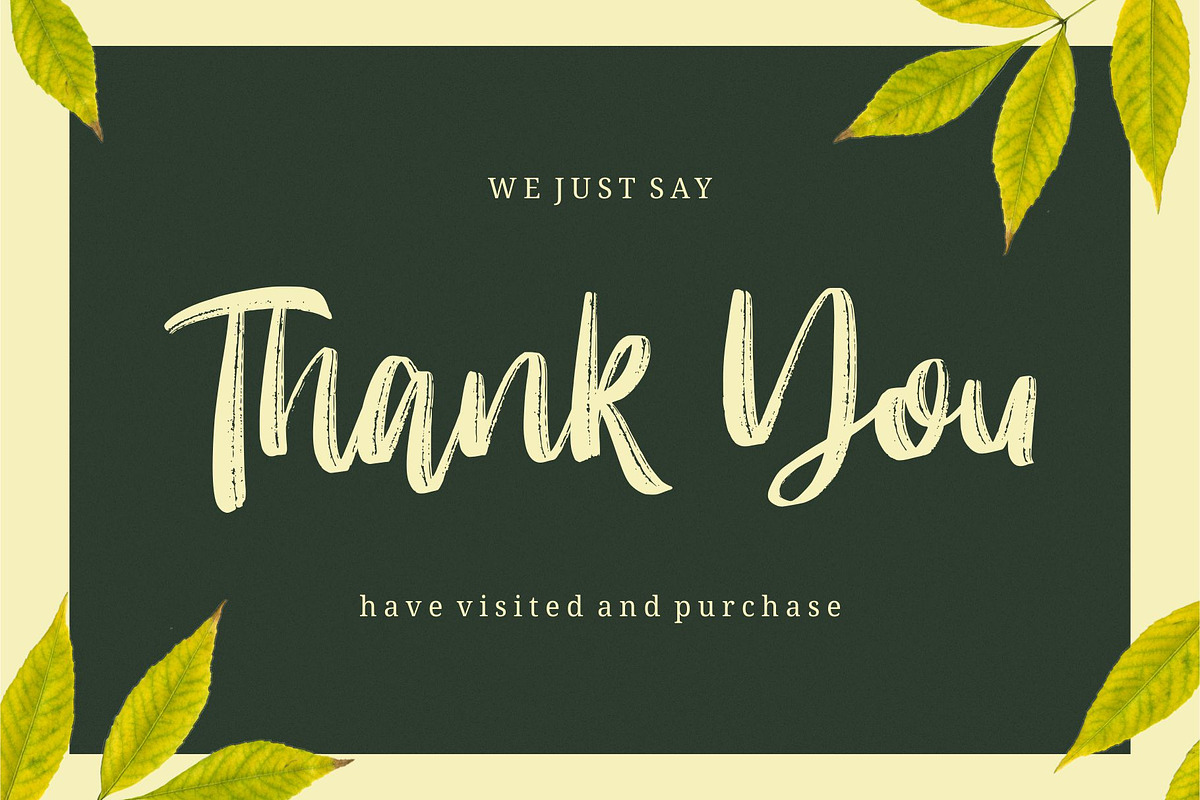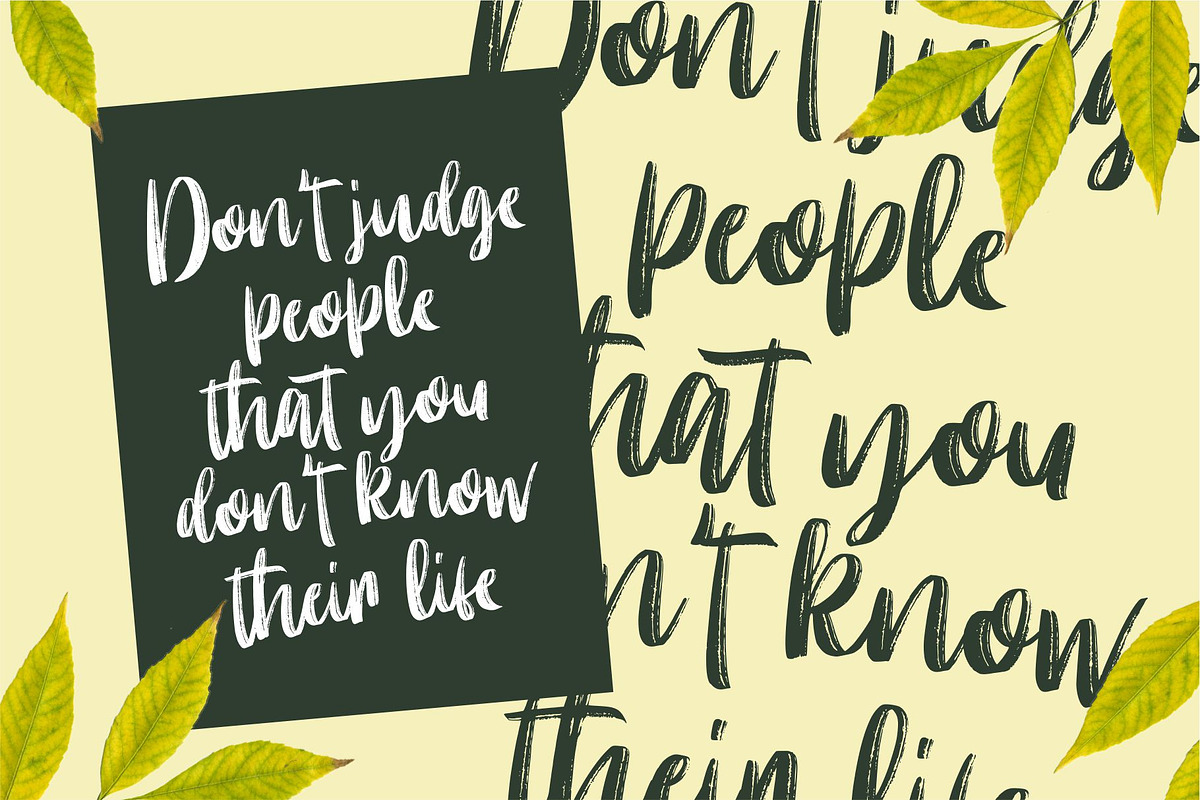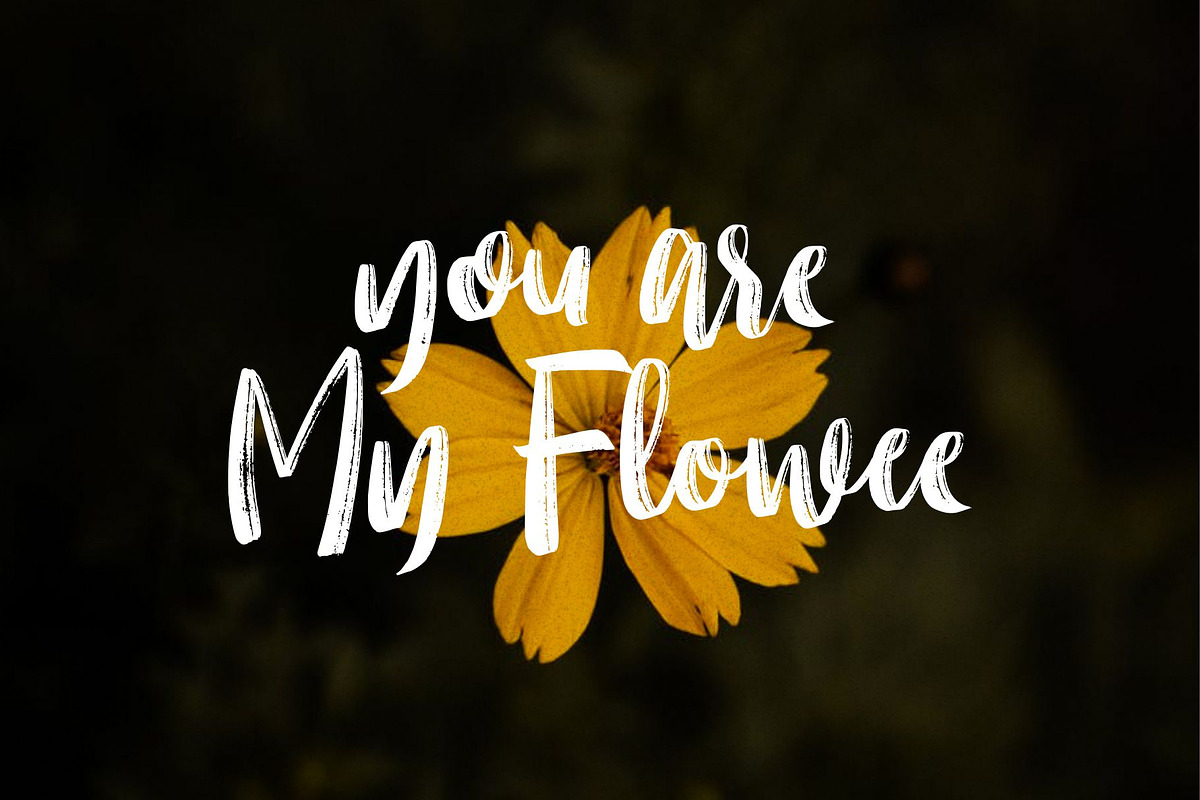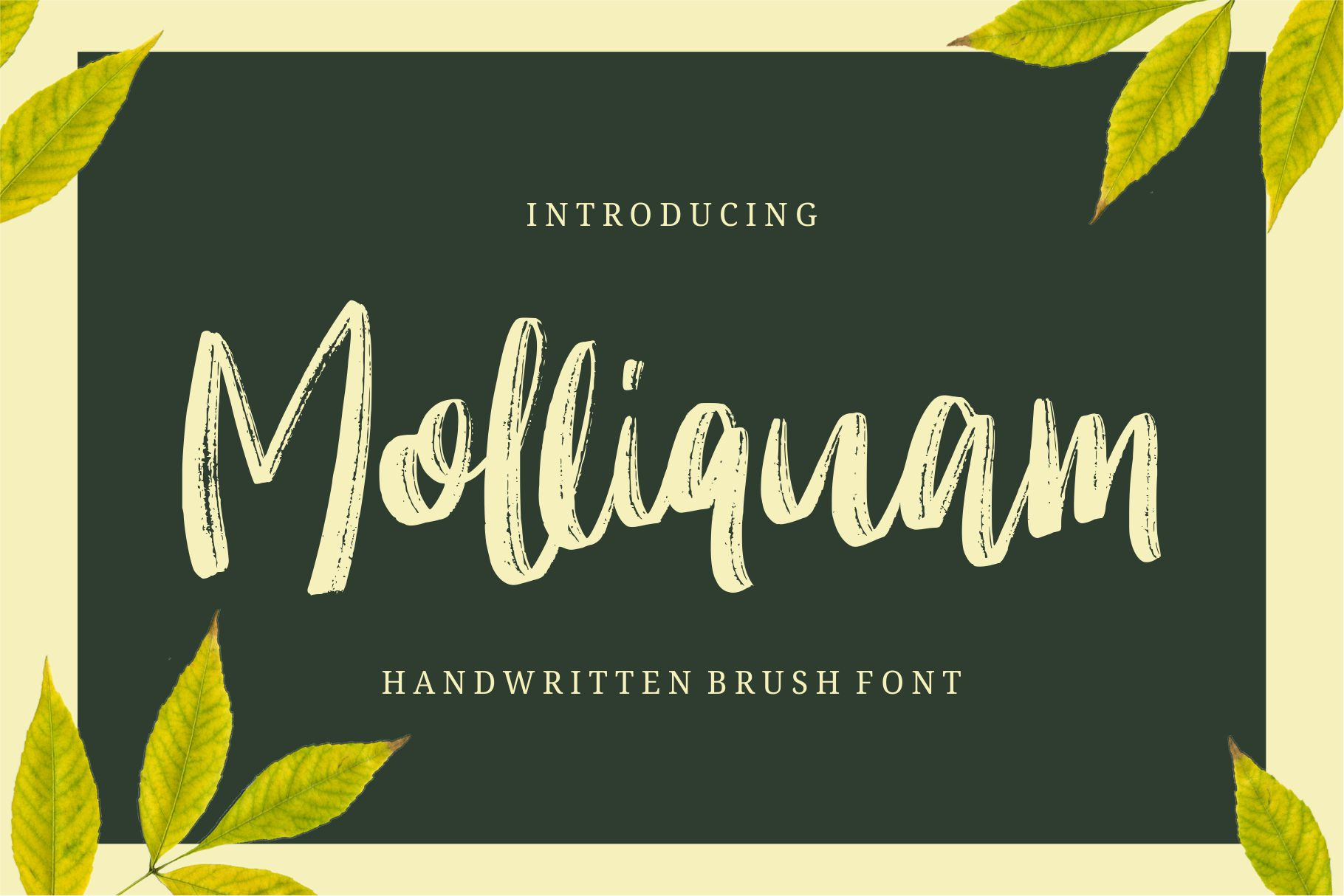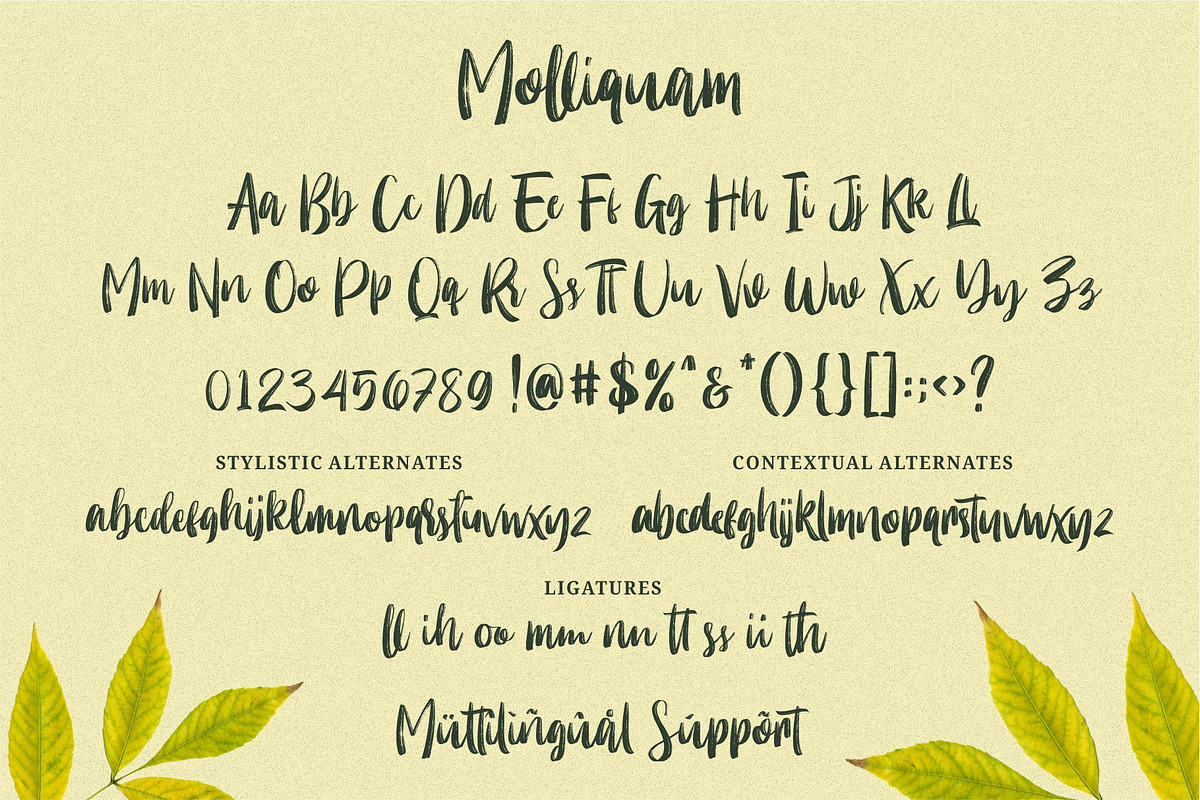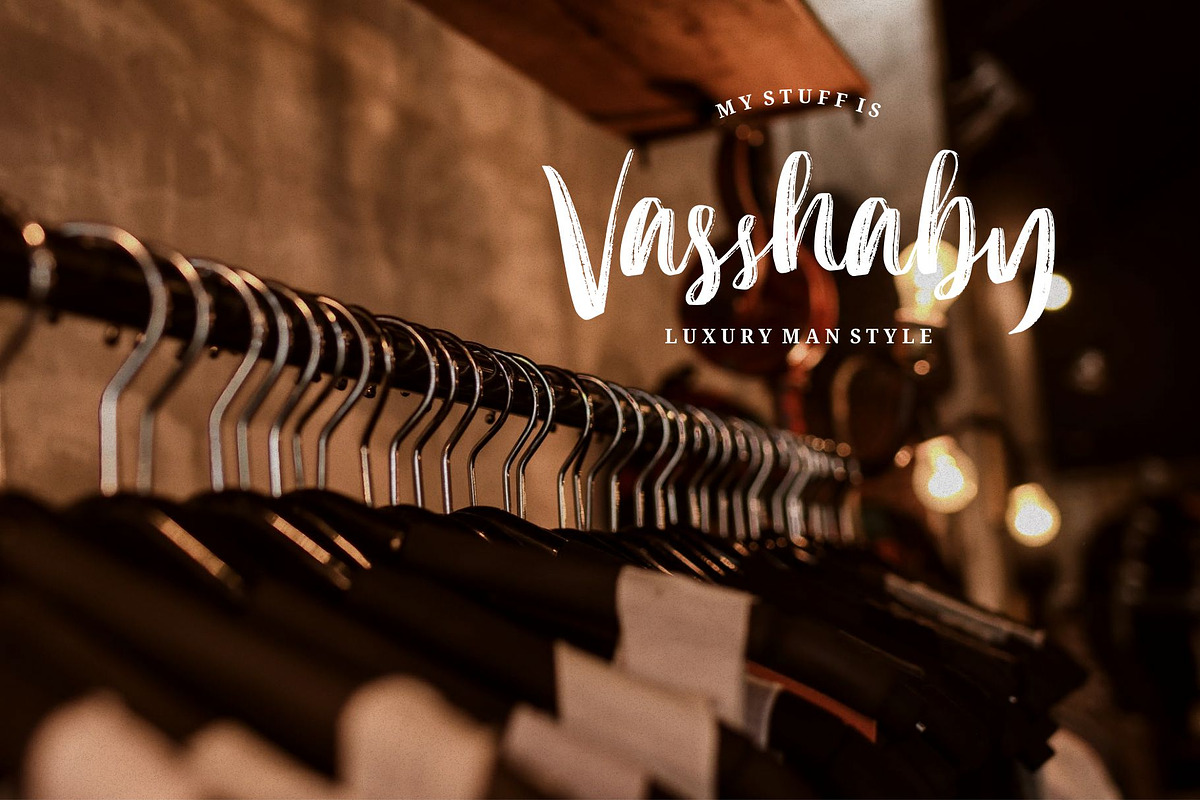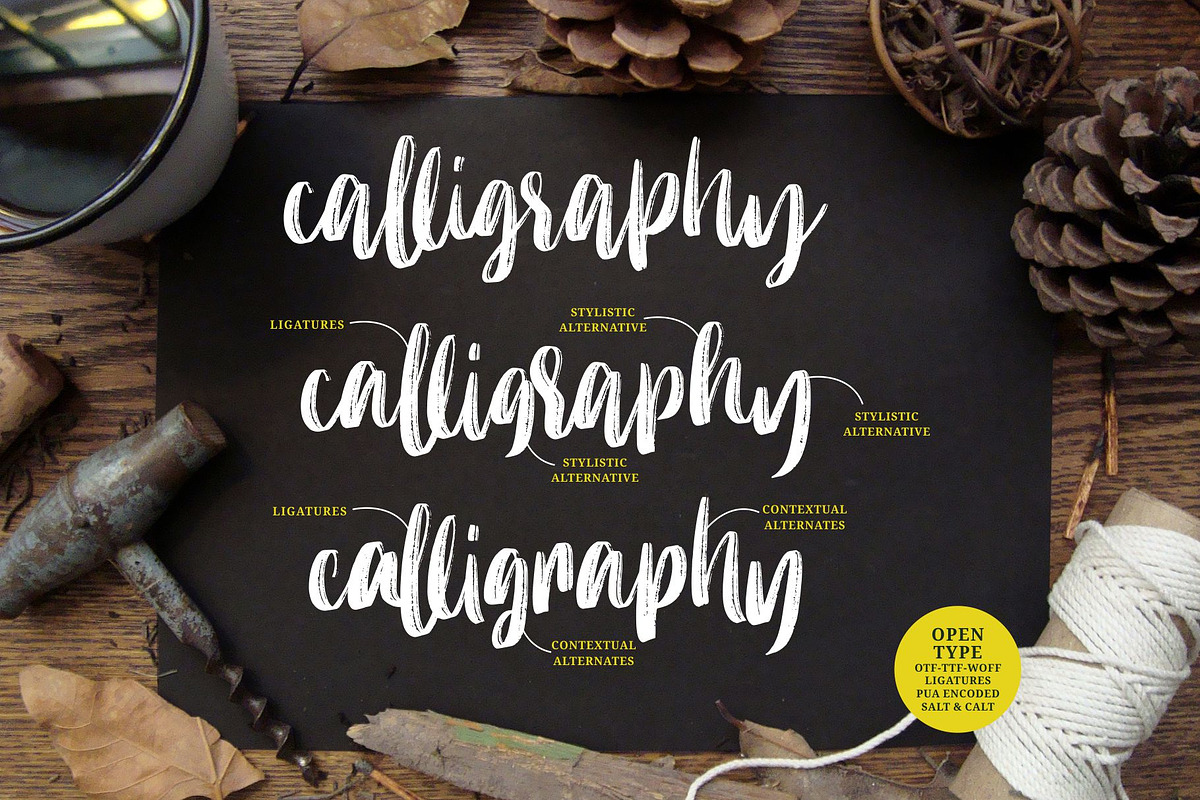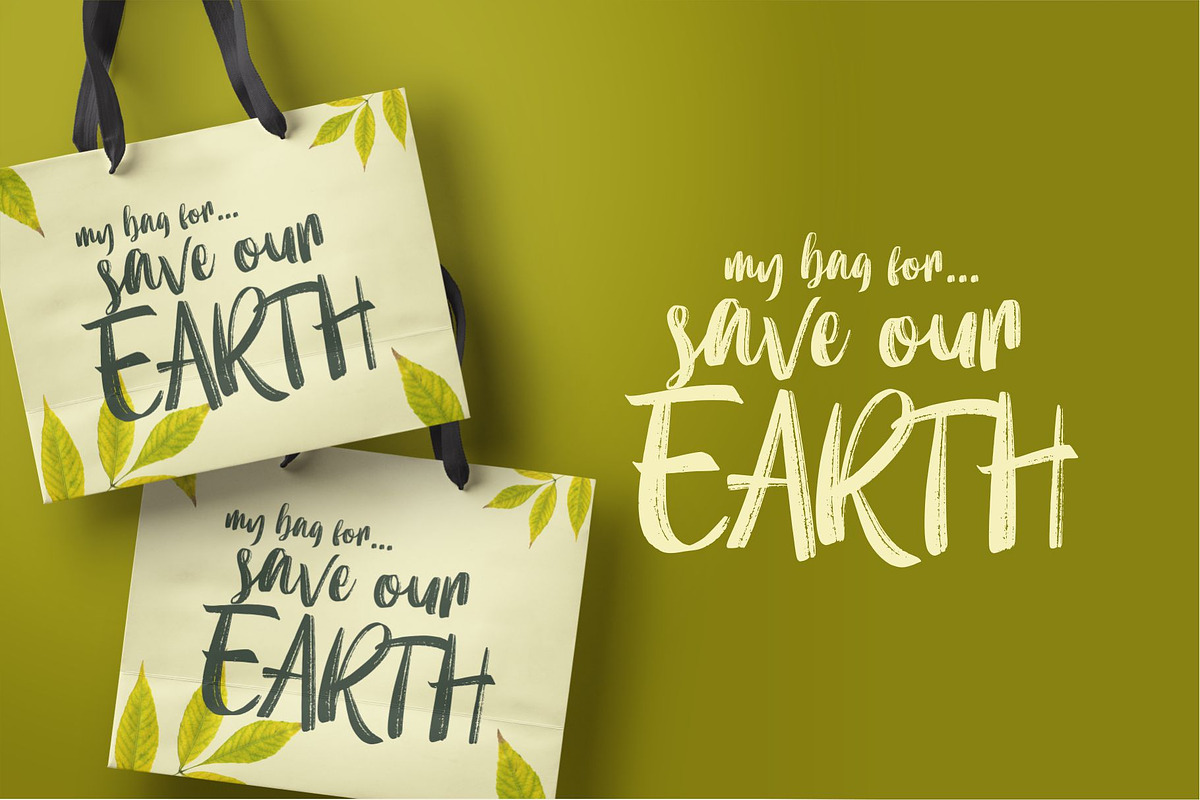
Molliquam - Handwritten Font
Introducing Molliquam
Molliquam font starts from a brush stroke with a script style and also follows the times. Molliquam is very suitable for use in various media such as; packaging, logo, label, poster, shirt design, quote of wisdom, handlettering, typography and many other media.
- Natural brush touch